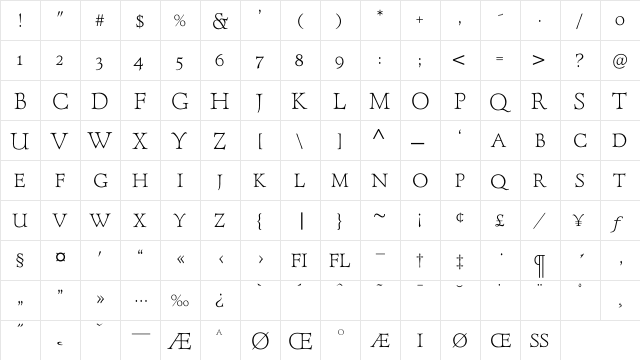
ForumTitlingLightOldStyleFigs Regular
Design Context for ForumTitlingLightOldStyleFigs Typeface
ForumTitlingLightOldStyleFigs carries the refined structure of traditional serif typography, with bracketed terminals and considered proportions that communicate credibility and craft. The delicate stroke weight brings airiness and refinement to layouts.
Pro Tip: Set ForumTitlingLightOldStyleFigs at slightly larger body copy sizes than you would a regular-weight serif to compensate for its delicate stroke contrast.